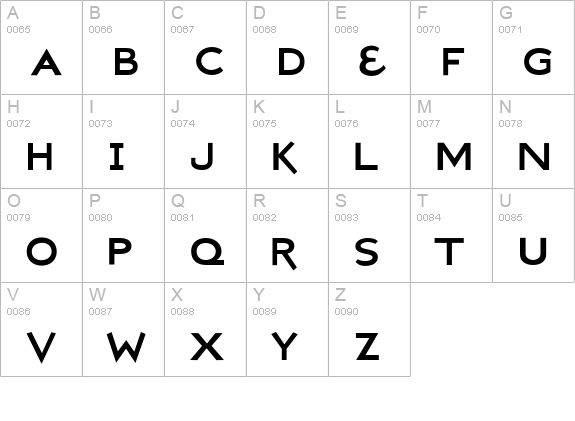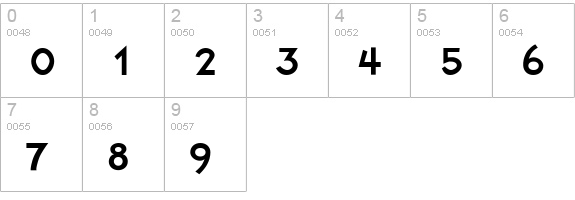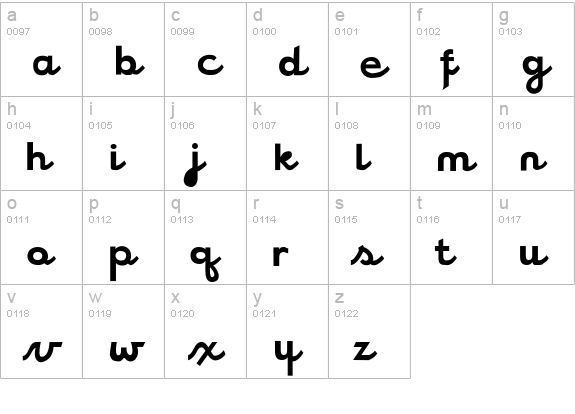
Ribjoint Font Details
Introducing Ribjoint, a stunning, contemporary font that is sure to captivate and inspire. With its sleek lines and modern design, Ribjoint exudes a sense of sophistication and elegance. This versatile typeface is perfect for a wide range of design projects, from branding and logos to packaging and advertisements. Ribjoint's unique letterforms are carefully crafted to provide a harmonious balance between readability and visual interest. Each character is meticulously designed, resulting in a font that is both eye-catching and easy to read. Whether used in headlines or body text, Ribjoint adds a touch of style and professionalism to any project. What sets Ribjoint apart is its accessibility - it is completely free to download at FontsMarket.com. This means that designers, artists, and creatives of all kinds can easily access this remarkable font without any cost. With just a few clicks, Ribjoint can be added to your font library, ready to elevate your designs to the next level. Whether you're a professional designer or a DIY enthusiast, Ribjoint is a font that will not disappoint. Its sleek and contemporary aesthetic, combined with its availability as a free download, makes it a must-have for any design toolkit. So why wait? Head over to FontsMarket.com now and get your hands on Ribjoint - the perfect font for all your creative endeavors.